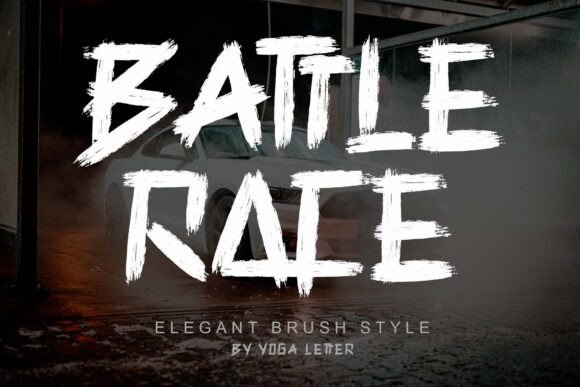
The Ultimate Font for the Bold and the Beautiful
Imagine you’re brainstorming ideas for a new movie title, and suddenly, a burst of creativity hits you. You envision a title that’s not just eye-catching but also elegant and modern. That’s where the Battle Race Font comes in – a game-changing typeface that’s about to revolutionize the way you design.
This versatile font is perfect for a wide range of applications, from stickers and posters to prints and banners. Its unique blend of elegance and modernity makes it an ideal choice for branding, logos, and even book titles. With its multilingual support and ligatures, the Battle Race Font is a valuable addition to any designer’s toolkit, offering endless possibilities for creative expression.
Battle Race Font Key Features
- Font Family: Battle Race Font is a unique, hand-drawn font designed for gaming and entertainment purposes.
- Unique Characteristics: Battle Race Font features a distressed, worn look, giving it a gritty and edgy feel, perfect for action-packed games and movies.
- Character Set: Includes a comprehensive set of characters, including uppercase and lowercase letters, numbers, and punctuation marks, ensuring seamless use in various contexts.
Designer Review: Battle Race Font
Overall, I think the Battle Race Font has some great qualities, but also some areas for improvement. Let’s start with the good stuff:
- ✨ The font’s bold, edgy feel is perfect for any project that needs a bit of an adrenaline rush. It’s definitely eye-catching!
- ✨ The font’s versatility is impressive – it can work well for both digital and print projects, from logos to signage.
- ✨ The font’s unique, hand-drawn feel gives it a lot of character and makes it stand out from more generic fonts.
- ⚠️ The font’s boldness can be overwhelming in certain situations, making it difficult to read in smaller sizes or for extended periods of time.
- ⚠️ The font’s irregularities can make it challenging to use for projects that require precise, uniform typography.
Overall, I think the Battle Race Font is a great choice for projects that need a bold, attention-grabbing font. However, it may not be the best fit for projects that require precise, uniform typography or readability.
Using the Battle Race Font: A Practical Application Guide
The Battle Race Font is ideal for:
1. Action-packed headlines and titles.
2. Sports and fitness branding.
3. Gaming and esports graphics.
4. Any project that needs a bold and energetic font.
1. Pair the Battle Race Font with a bold and bright color scheme.
2. Use it for headings and titles to draw attention.
3. Experiment with different font sizes and styles to add emphasis.